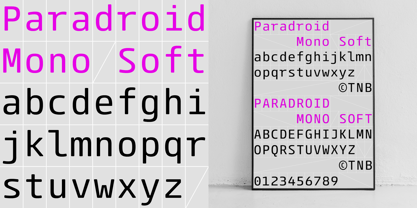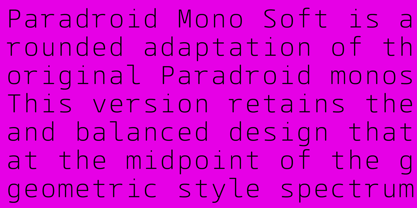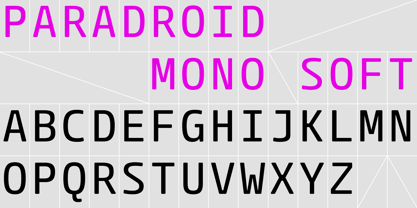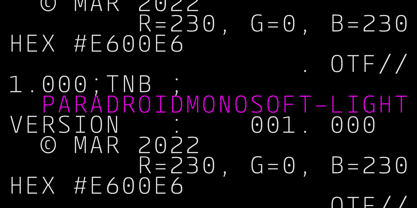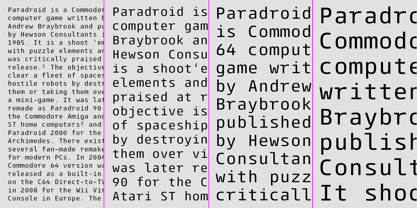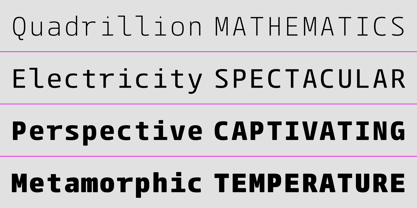
Paradroid Mono Soft
by The Northern Block
The Paradroid Mono Soft Font Family was designed by Jonathan Hill and published by The Northern Block. Paradroid Mono Soft contains 8 styles and family package options.
ParadroidMono Soft is a refined, rounded adaptation of the original Paradroid monospaced font. This version retains the pragmatic and balanced design that places it at the midpoint of the grotesque and geometric style spectrum. The rounded edges introduce a subtle softness, enhancing its approachability while maintaining the neutral and modern aesthetics of the original. Like its predecessor, ParadroidMono Soft combines the humanist legibility of grotesque typefaces with the clean precision of geometric forms. This results in a type family that is functional and easy to read, with a smooth, understated character that avoids being overly distracting. It's particularly well-suited for applications where clarity, readability, and a touch of warmth are desired.
Details include four monospaced weights with italics and over 450 characters per style. OpenType features include digital numerals, numerators, denominators, stylistic zeros, fractions and language support covering Western, Southern and Central Europe.